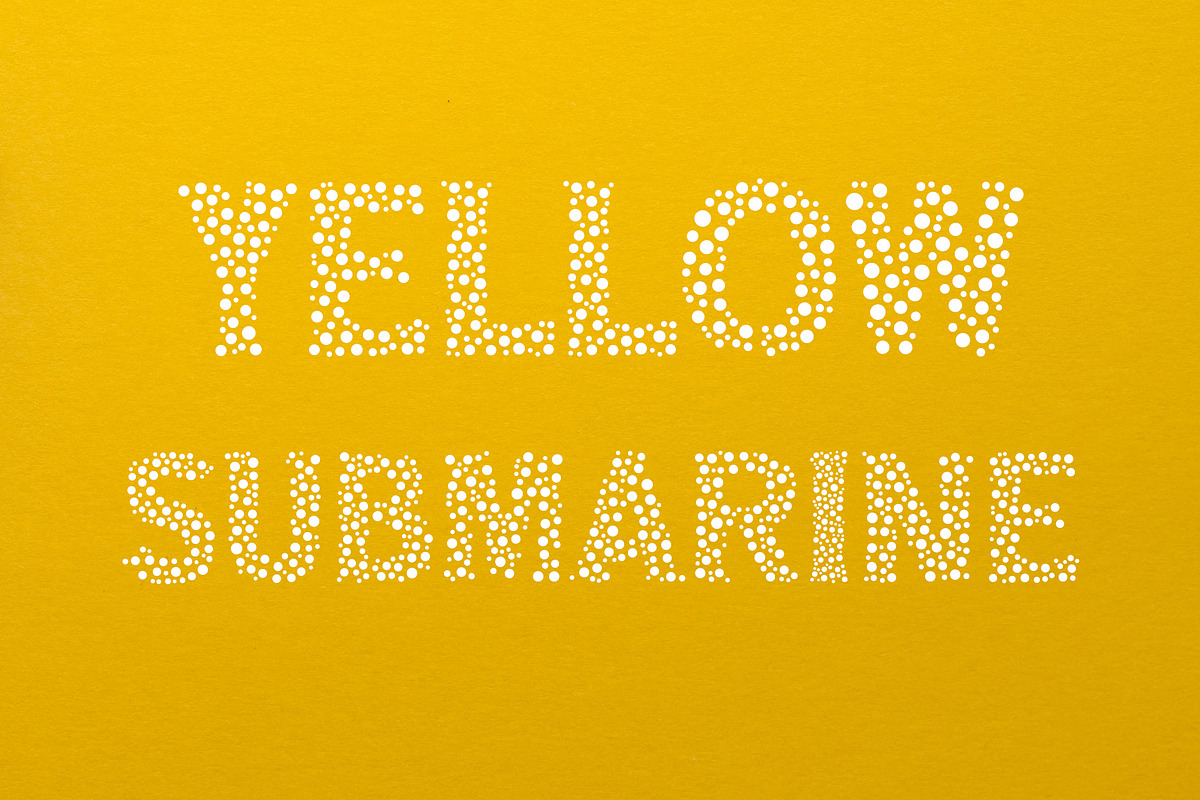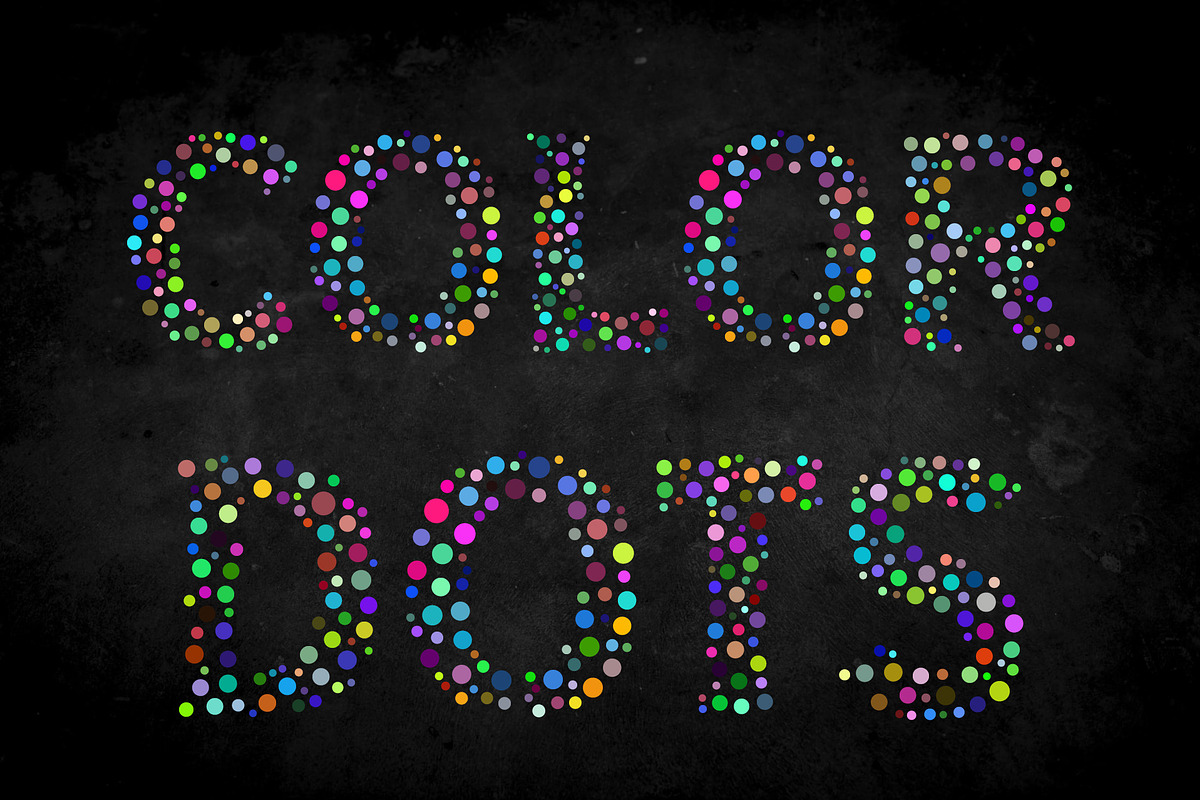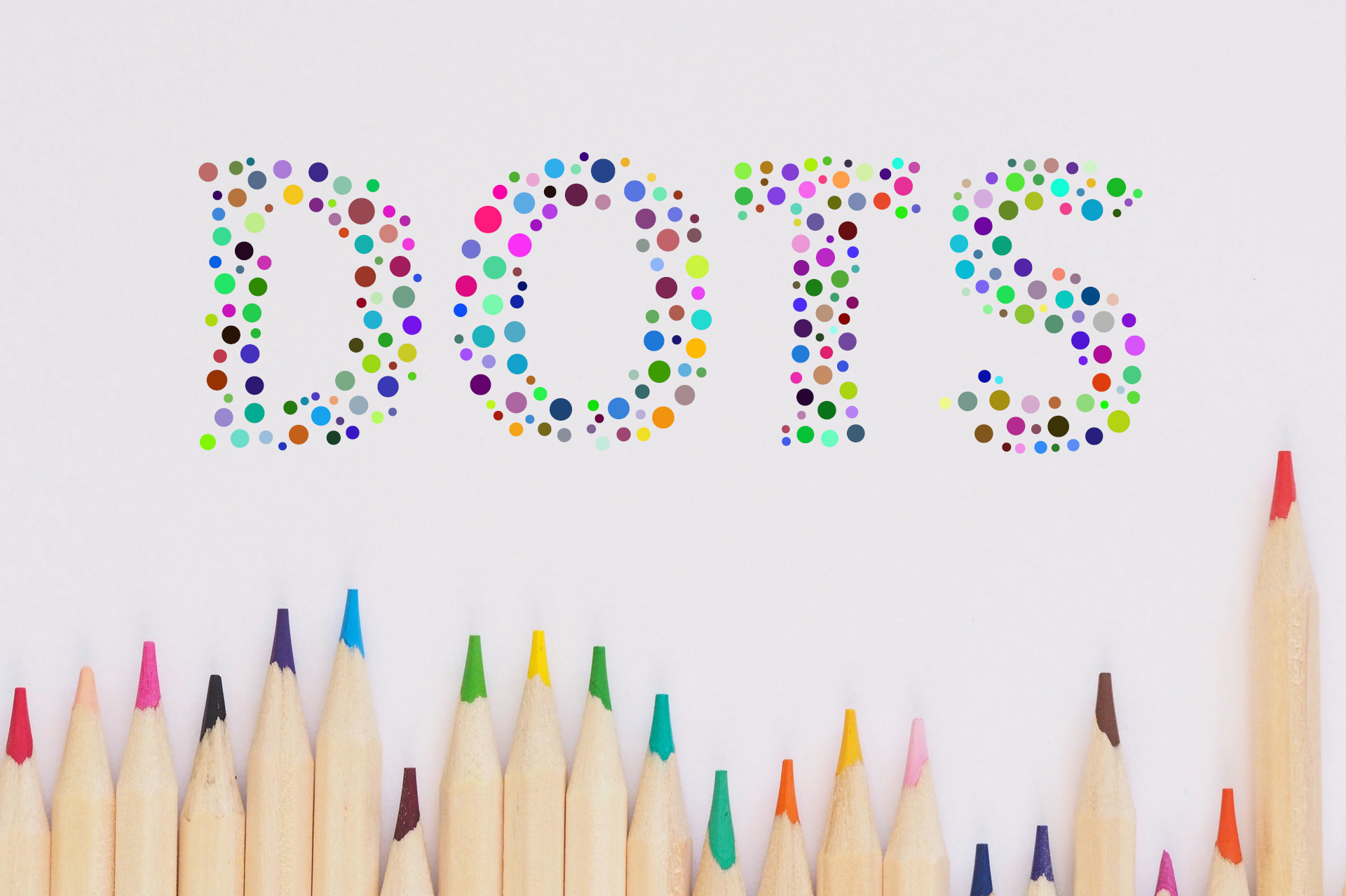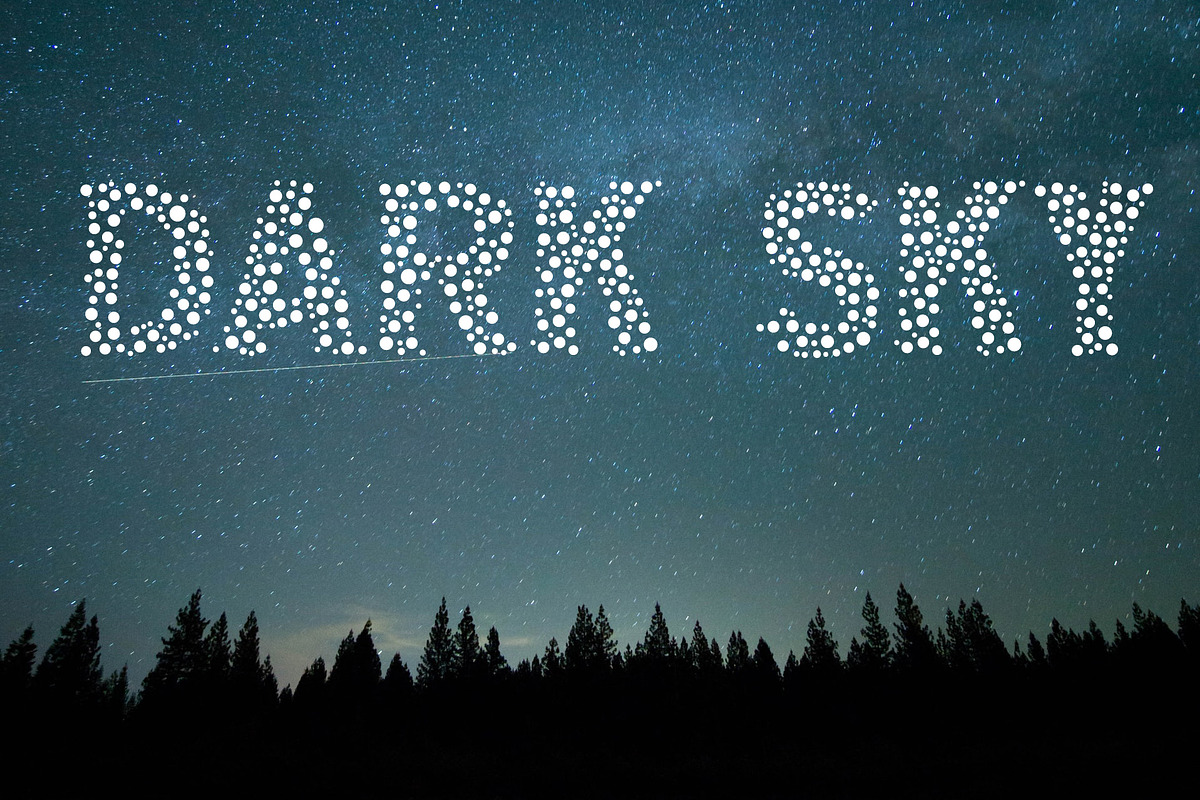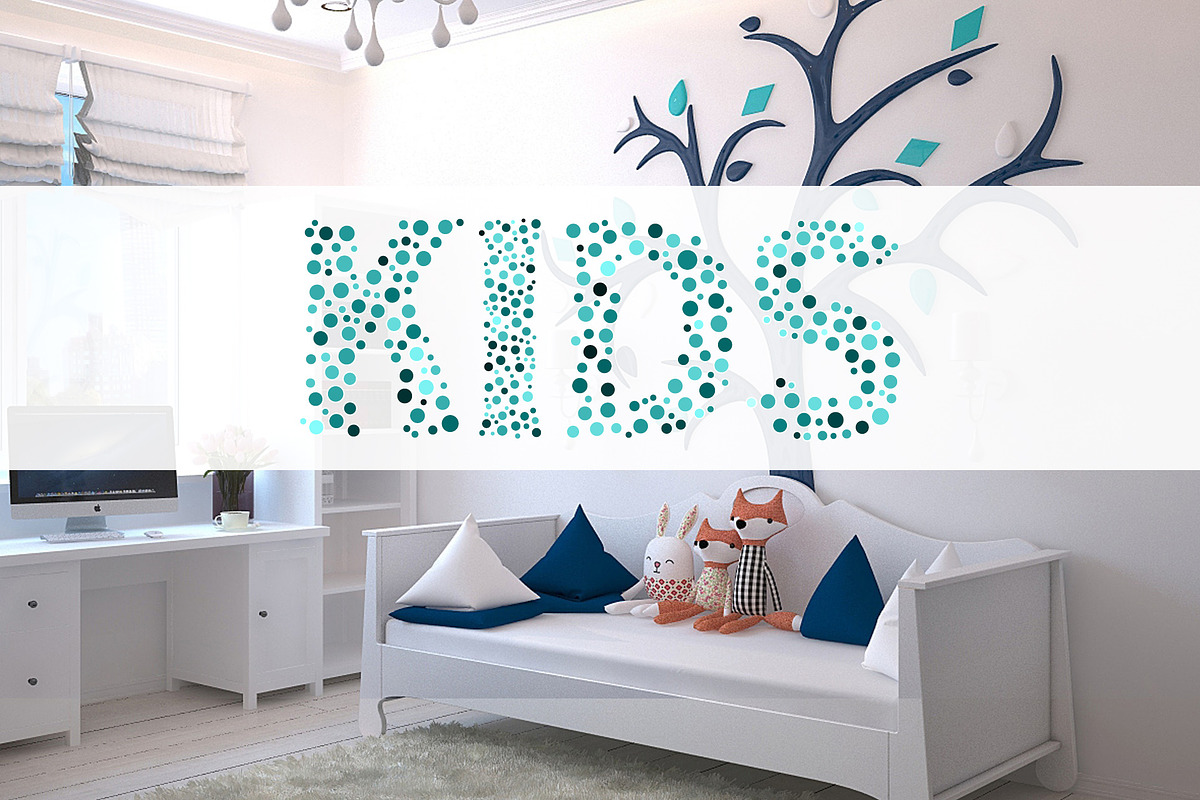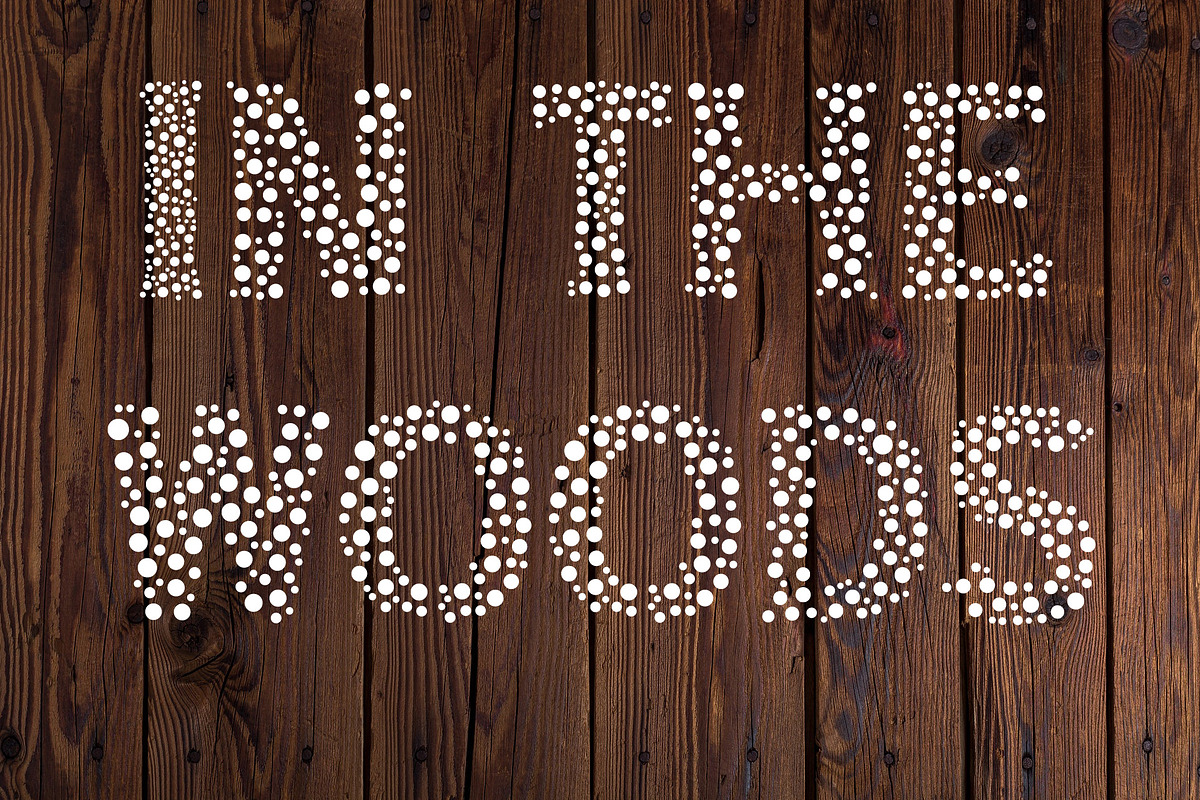
Color Dots Font
Color Dots is a dotted color slab serif.
It contains regular Multi-Dots font and colored SVG Color-Dots Font.
Great font with color dots on letters.
Great for posters, logos, packaging, invitations, websites, T-Shirts and more.